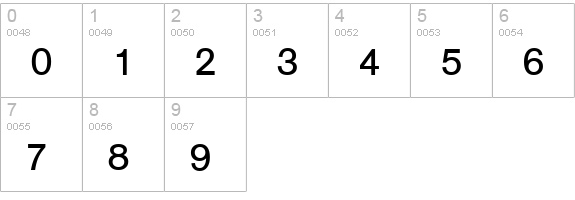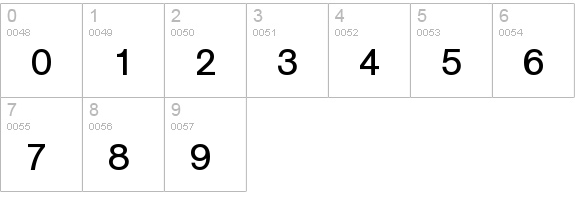
Arezzo-Regular Font Details
Arezzo-Regular is the standard, neutral variant in the Arezzo typeface family \xE2\x80\x94 well suited to general body text, paragraphs, and standard typographic work.
Arezzo-Regular font is a modern and versatile typeface that strikes the perfect balance between elegance and readability. With clean lines and a timeless design, this font is perfect for a wide range of projects, from branding to editorial design. The Arezzo-Regular font features a classic yet contemporary style that makes it suitable for both print and digital applications. Whether you're designing a logo, poster, or website, this font will add a touch of sophistication to your project. Best of all, Arezzo-Regular is available for free download at FontsMarket.com. So you can access this high-quality font without any cost, making it an excellent choice for designers on a budget. Don't miss out on the opportunity to enhance your designs with the elegant and versatile Arezzo-Regular font.